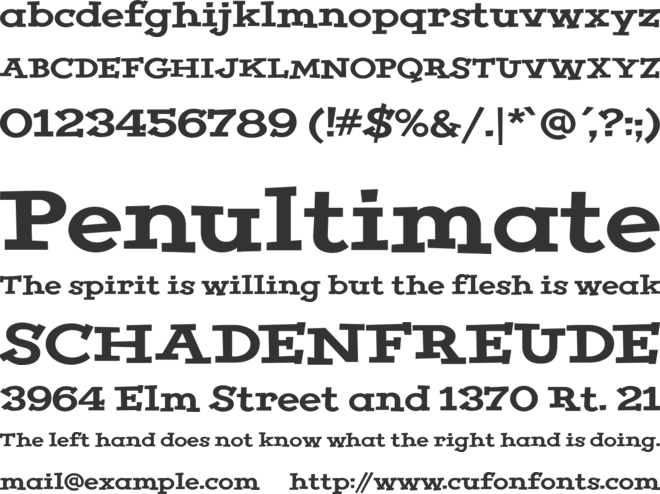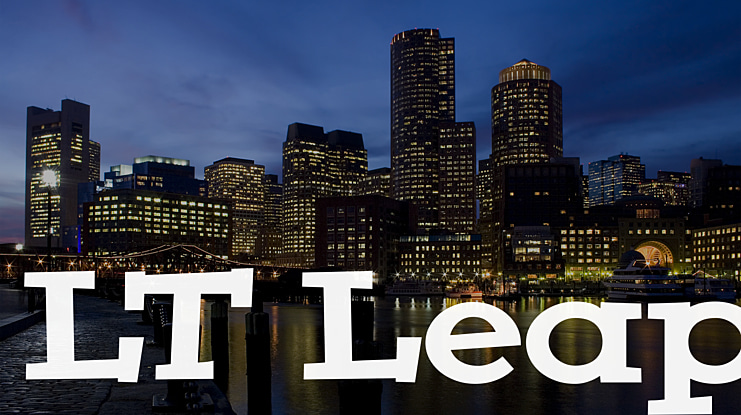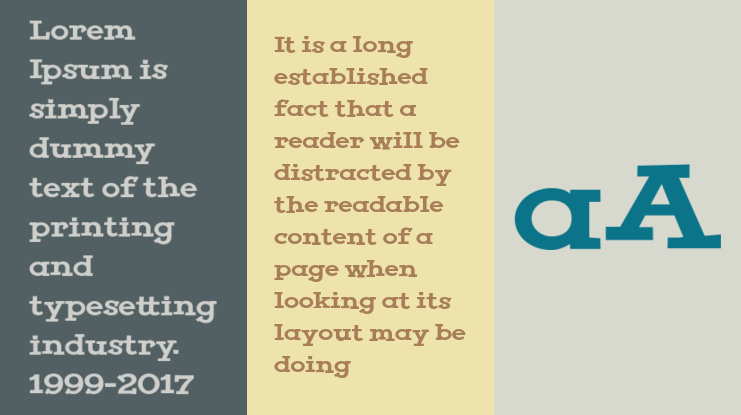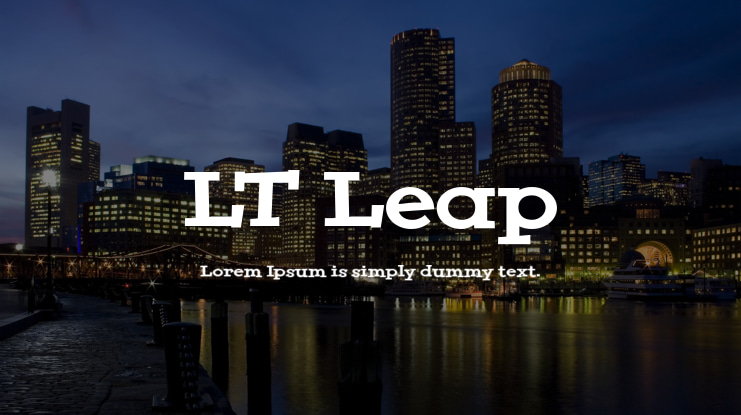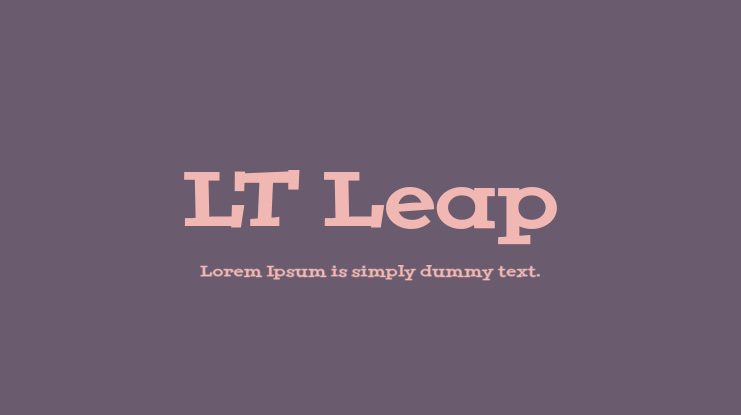
LT Leap Font
Daniel Lyons
"Leap" is a refined revival of the old Yahoo! logotype from the 1990s. The inclusions in this font from the original Yahoo! logo font are as follows: Lowercases, ligatures, discretionary ligatures, and stylistic alternates.